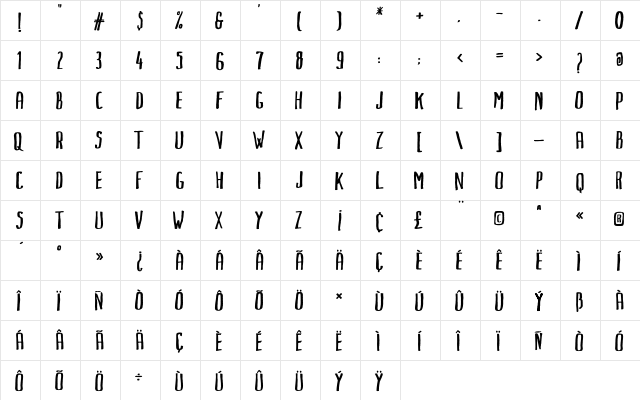
Markus Ink Regular
Design Context for Markus Ink Typeface
Markus Ink is a composed and adaptable typeface that performs quietly and consistently across a wide range of design contexts.